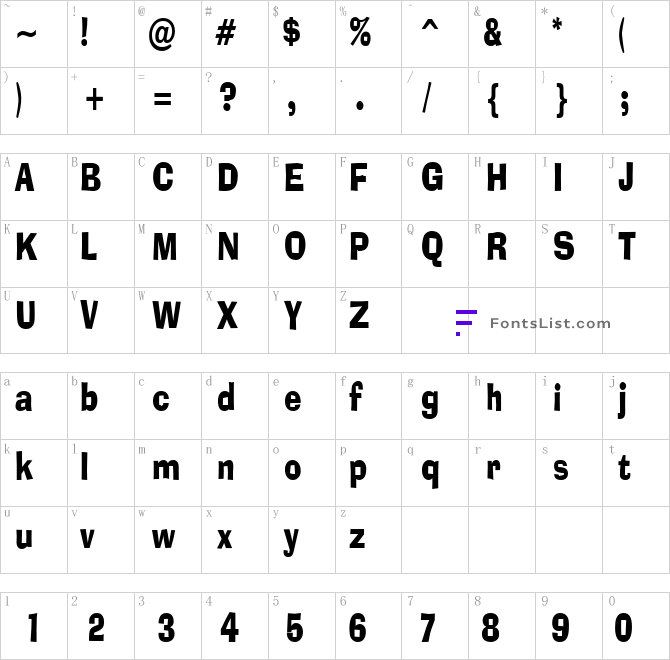
- Font Name:Alor-Condensed
Alor-Condensed-Normal1-.ttf is a very beautiful artistic font, Alor-Condensed-Normal1-.ttf is widely used in the design and printing of various books and pictures,Alor-Condensed-Normal1-.ttf has a strong visual impact,Alor-Condensed-Normal1-.ttf is a commonly used font in newspapers, magazines and books, and is used in posters, e-commerce Poster design, store design, logo design, font design and other fields.Alor-Condensed-Normal1-.